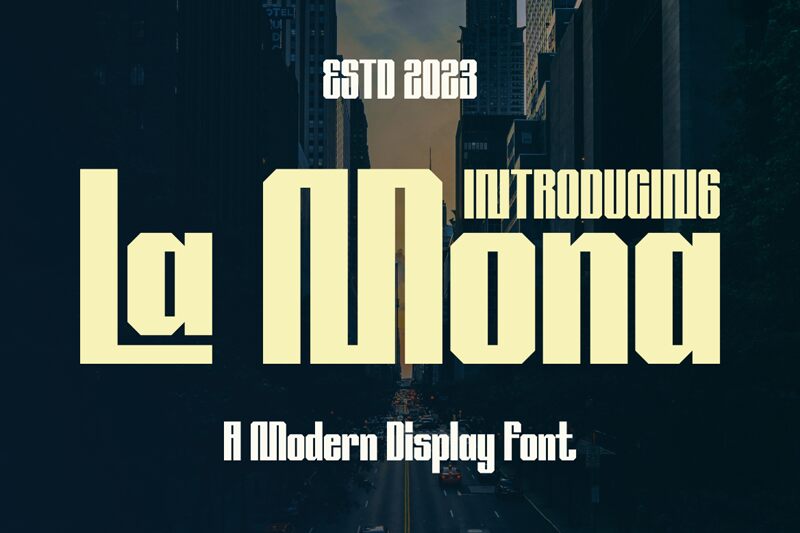
La Mona font, crafted by Gilang Ternadho of Maikohatta, is a striking display typeface known for its bold, condensed style. This free font stands out with its geometric precision and modern aesthetic, making it perfect for eye-catching headlines and creative design projects. Its unique character and expressive form lend themselves well to branding, advertising, and editorial design.
Ideal for those seeking to make a statement, La Mona's captivating structure ensures text is both impactful and legible. Designers will appreciate its versatility across digital platforms or print media.
La Mona